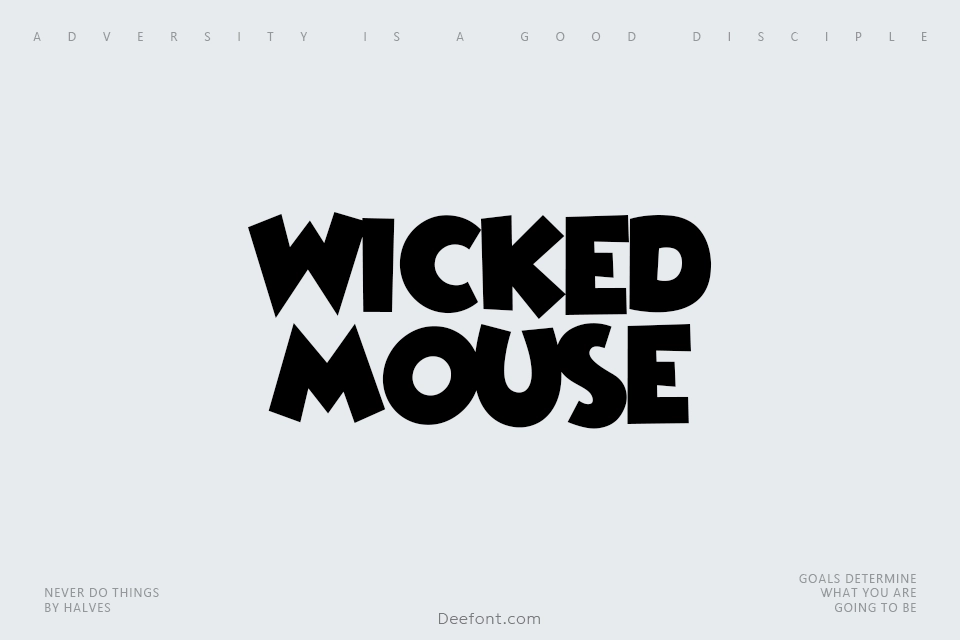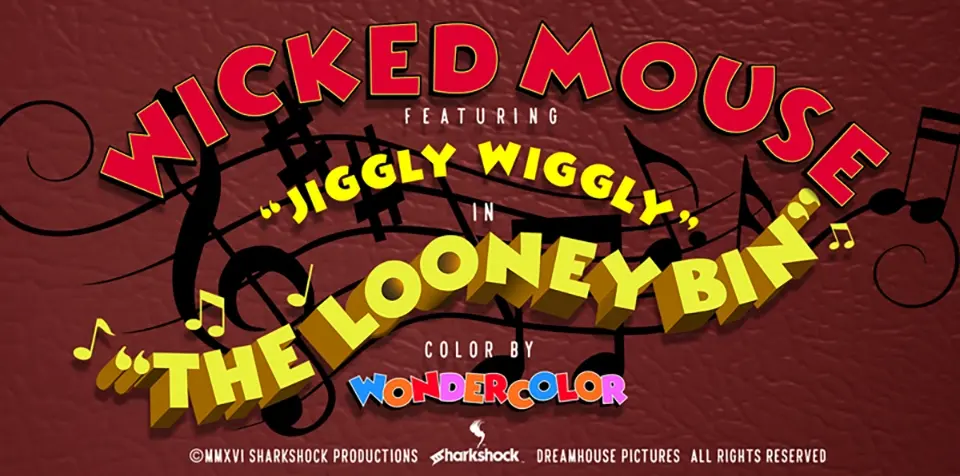
Wicked Mouse Font
Wicked Mouse is a playful and whimsical display font designed by Dennis Ludlow of Sharkshock, capturing the magic and charm of classic cartoon aesthetics. This versatile typeface features a distinctive cartoonish style with wacky and childlike characteristics, making it ideal for children’s books, web pages, fun logo designs, headlines, and creative branding projects. The font includes comprehensive character support with basic Latin, extended Latin, punctuation, and diacritics, offering 264 glyphs in total. Available in both regular and 3D variants, Wicked Mouse brings a nostalgic, entertaining quality to any creative endeavor seeking to inject personality and humor into typography.